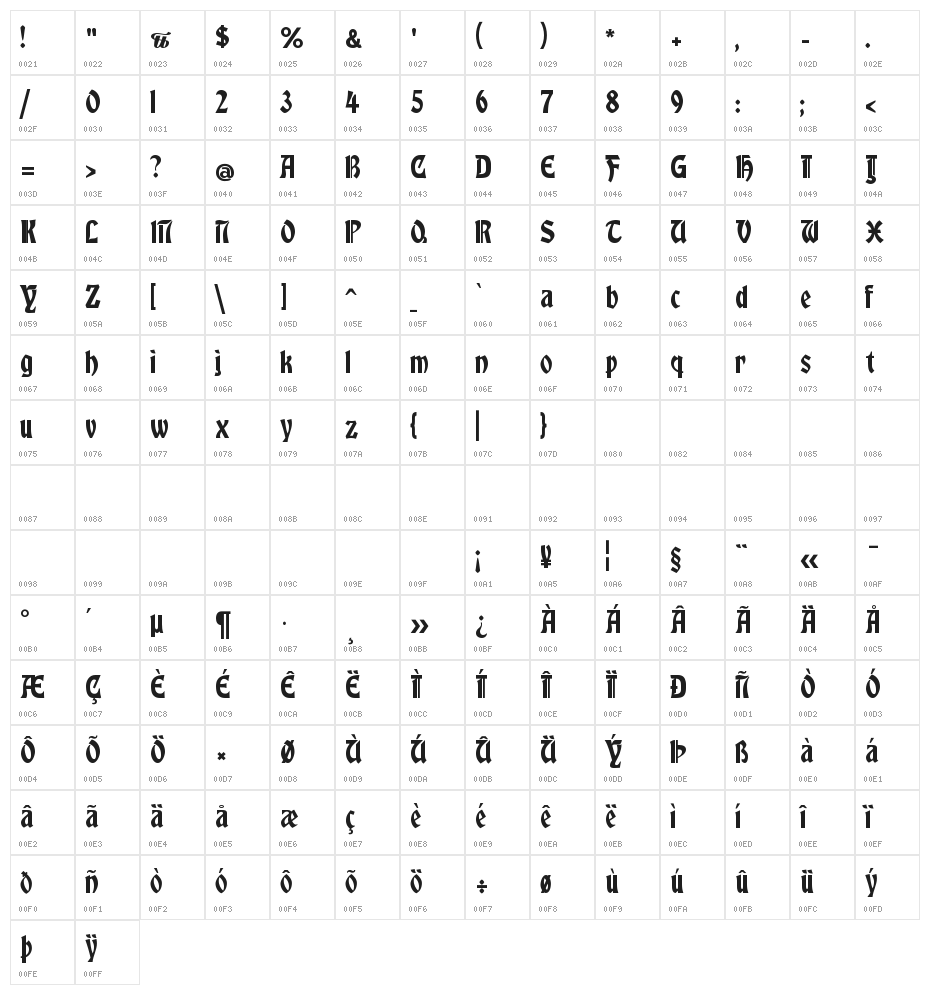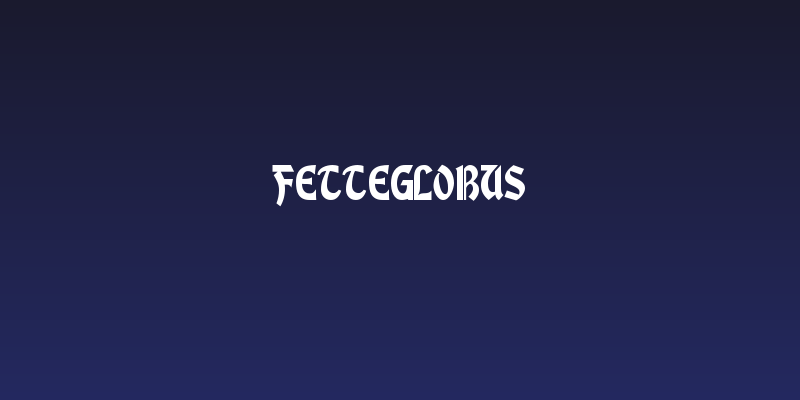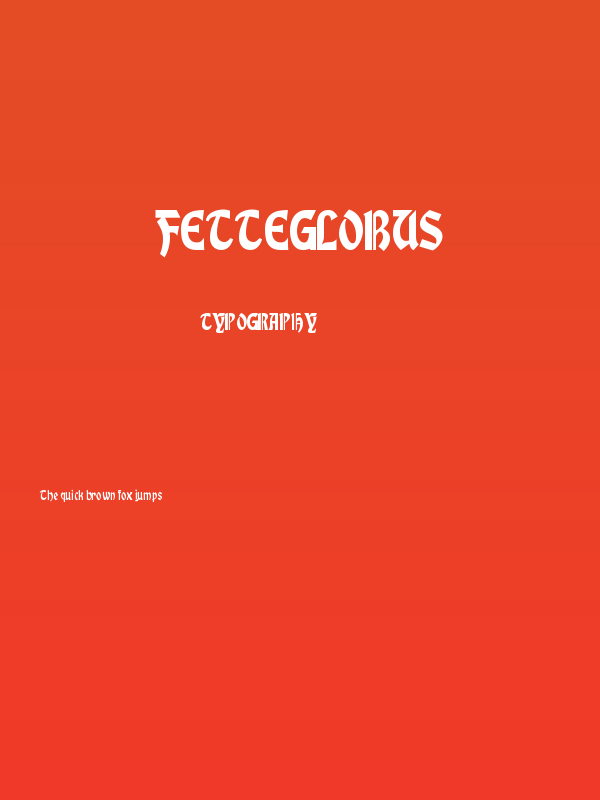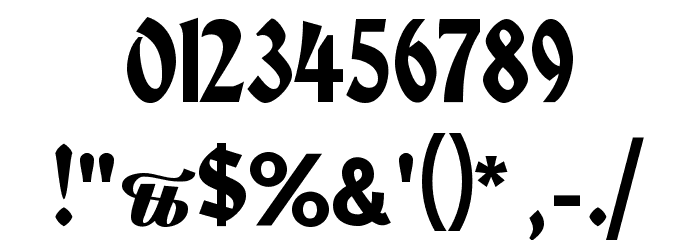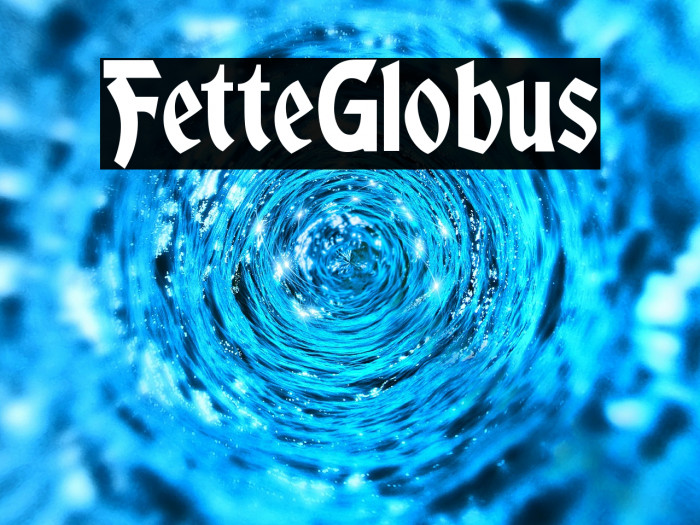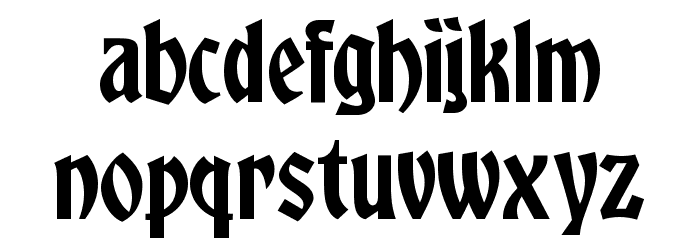
FetteGlobus Font
FetteGlobus Description
This font features a bold and dramatic blackletter style, characterized by its sharp, angular lines and intricate detailing. The uppercase letters exhibit a strong presence with their tall, narrow forms and pointed serifs, creating a sense of authority and tradition. The lowercase letters maintain the same angular aesthetic, offering a cohesive look across the typeface. The numbers are equally bold, with a consistent weight that matches the letters, ensuring readability and impact. Special characters are designed with the same attention to detail, making them suitable for decorative purposes. This font is ideal for projects that require a historical or gothic feel, such as posters, book covers, or branding for traditional products.
| Use Case | Headlines, Logos, Decorative |
| Proposed Projects | Ideal for historical-themed posters, book covers, and traditional product branding. |